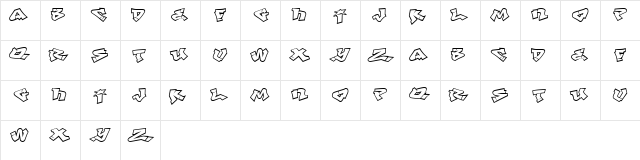
LHF Def Writer | BASE Regular
Design Context for LHF Def Writer | BASE Typeface
LHF Def Writer | BASE is a composed and adaptable typeface that performs quietly and consistently across a wide range of design contexts.